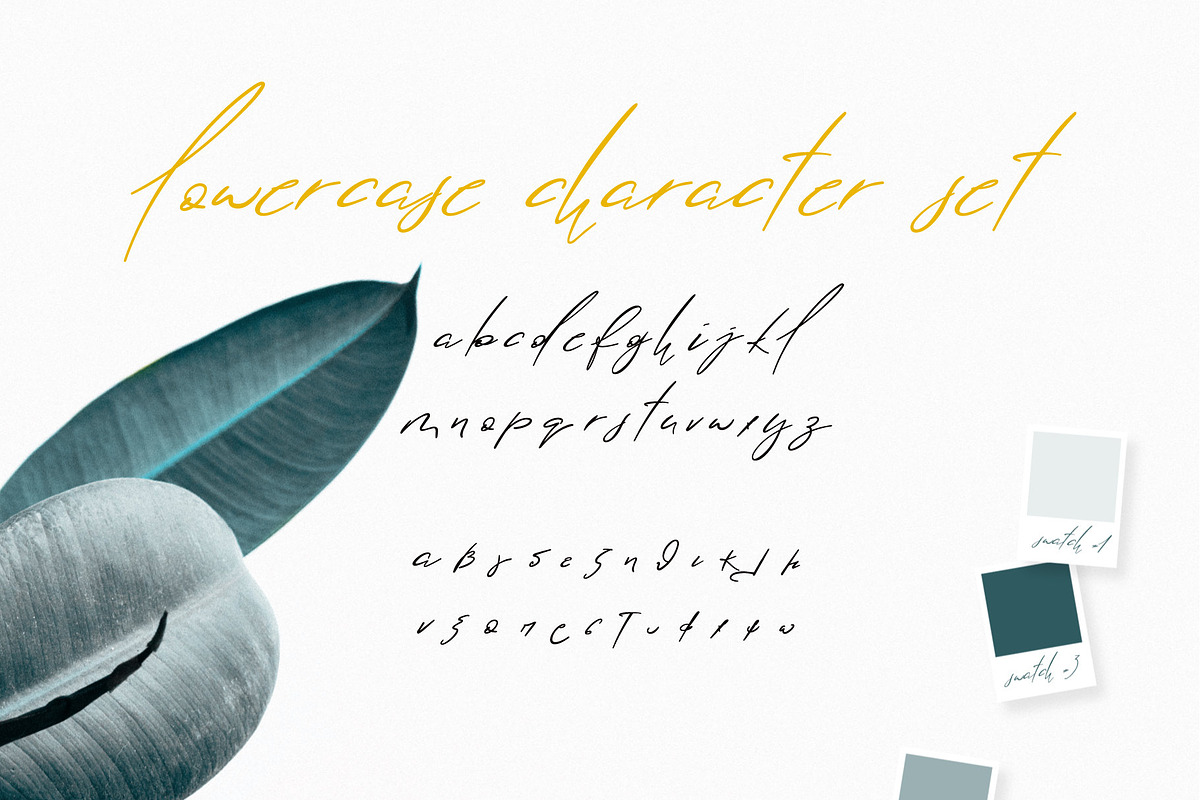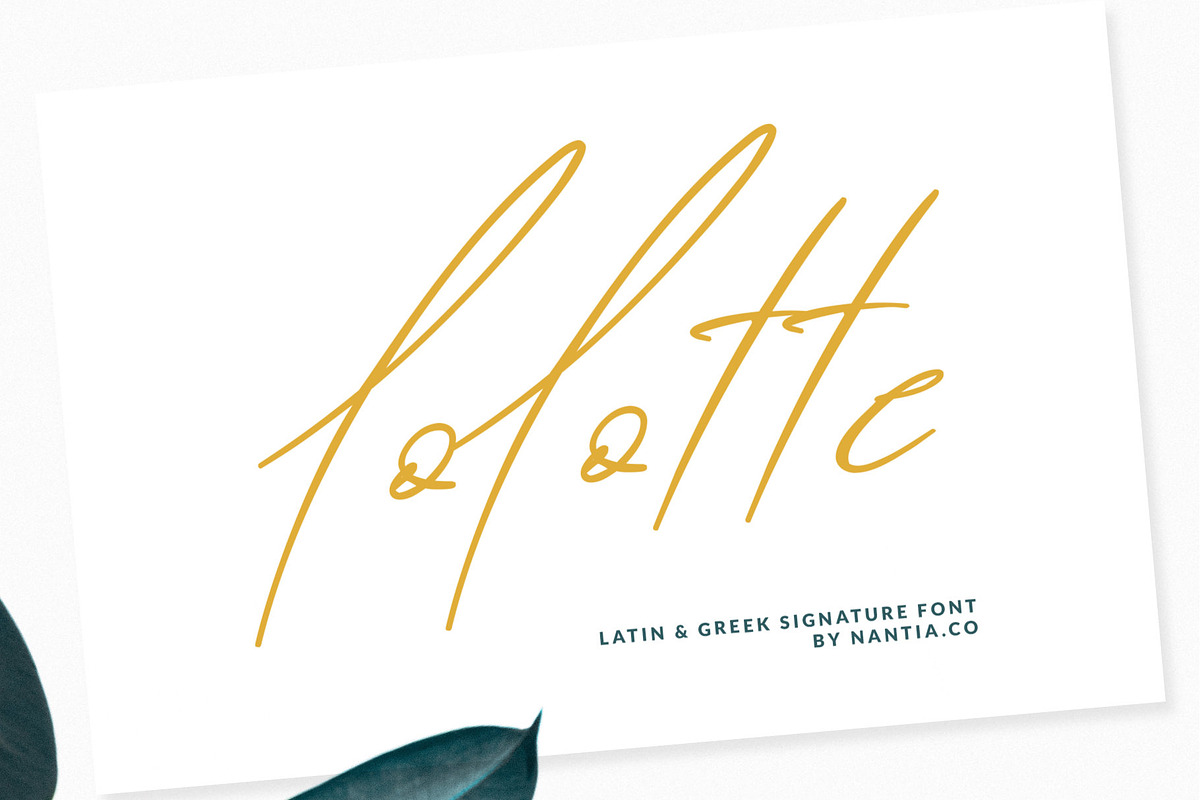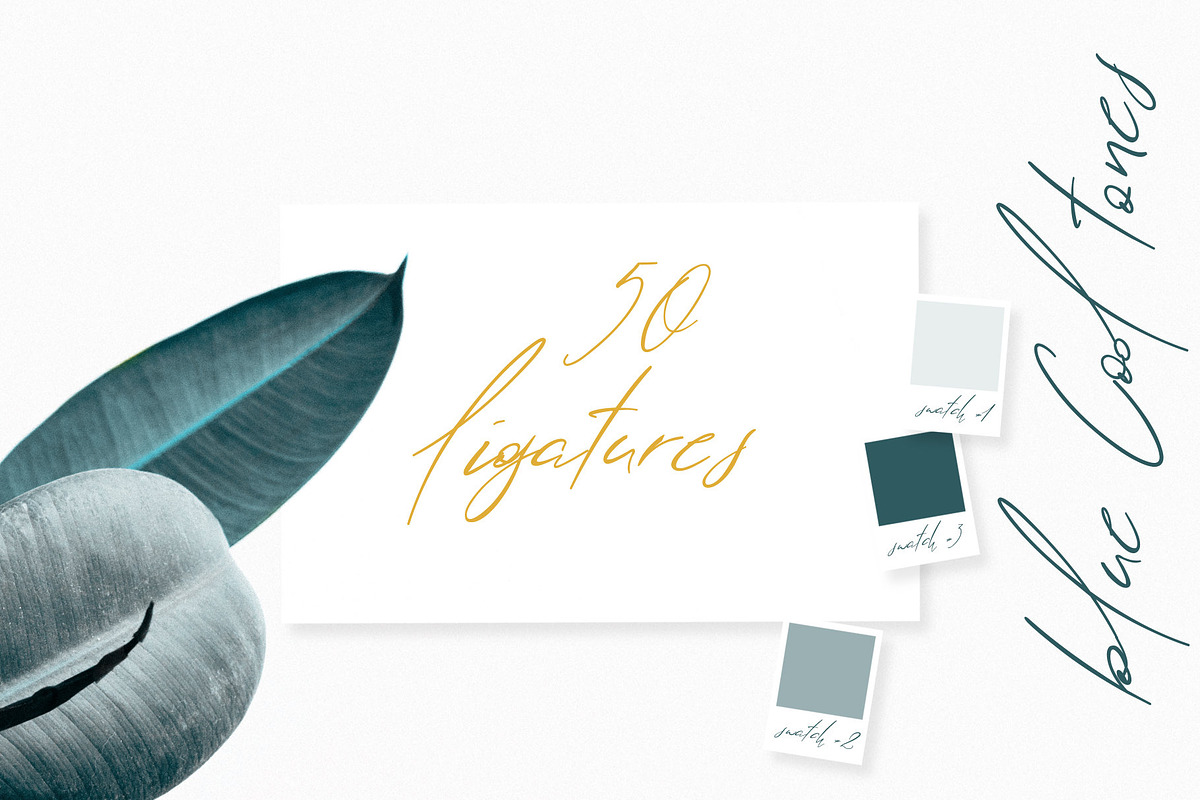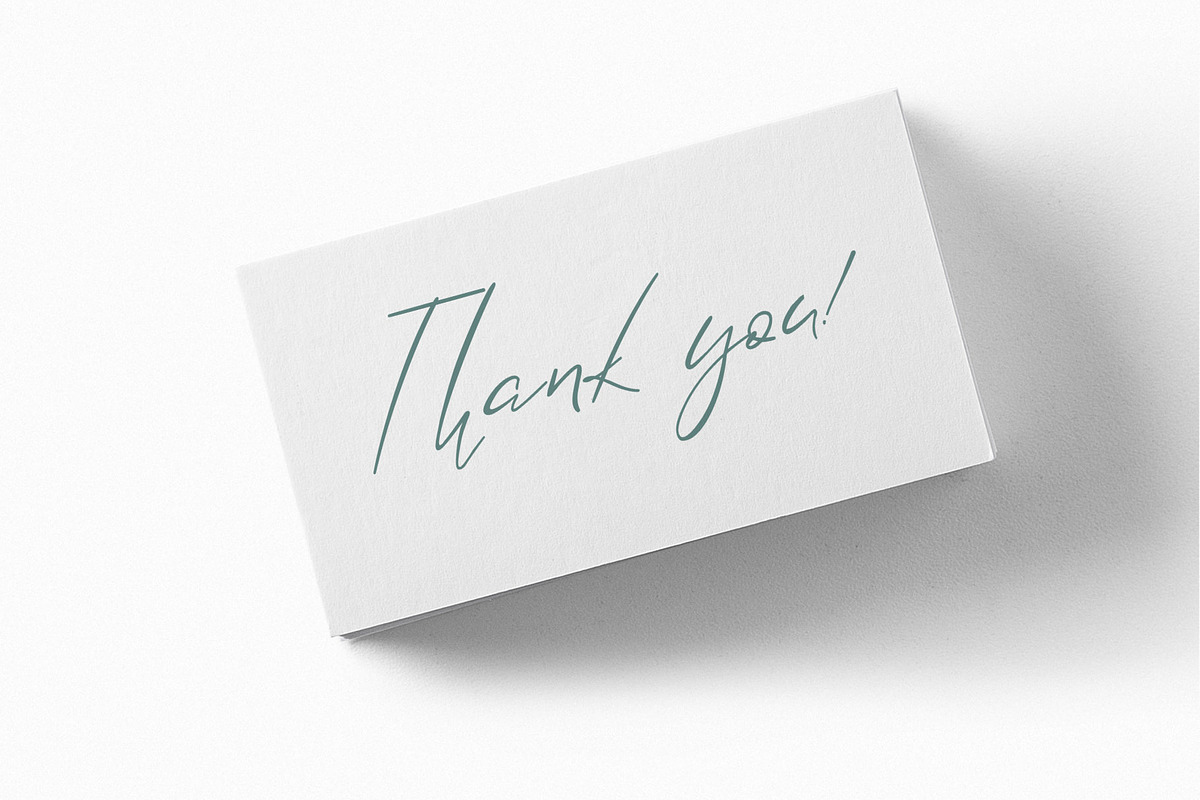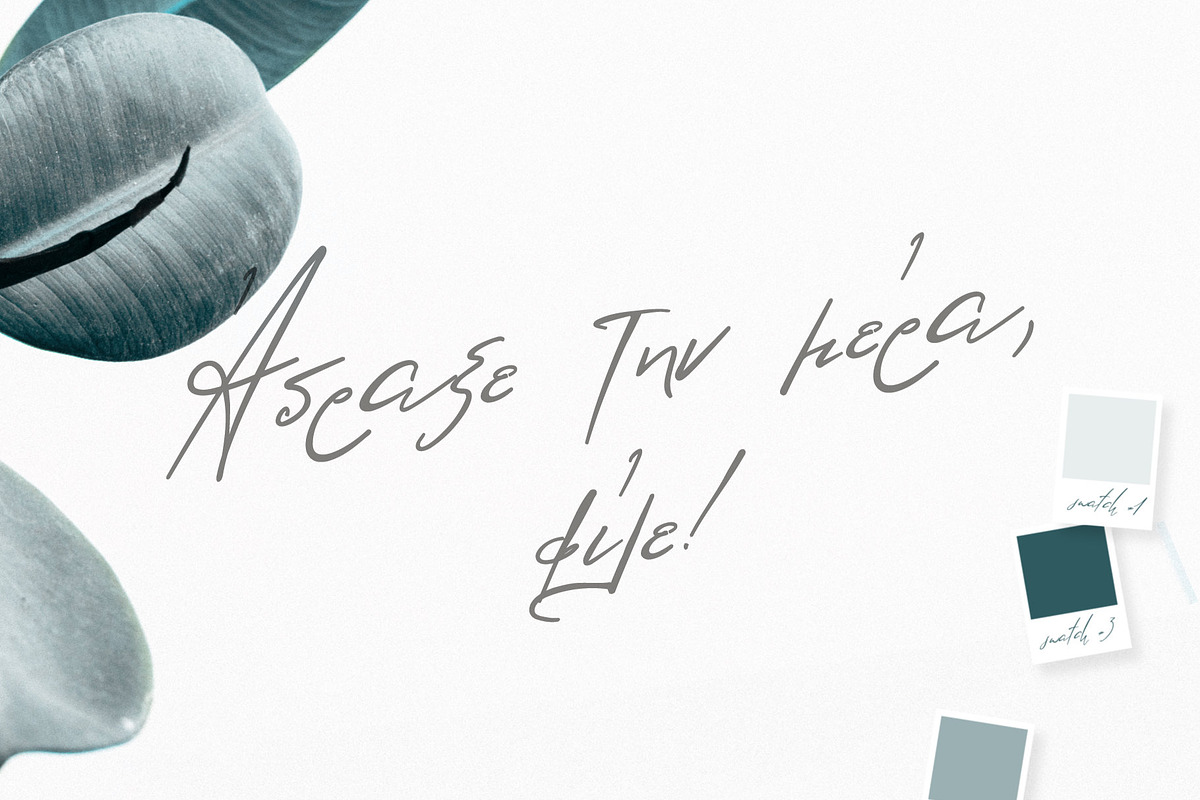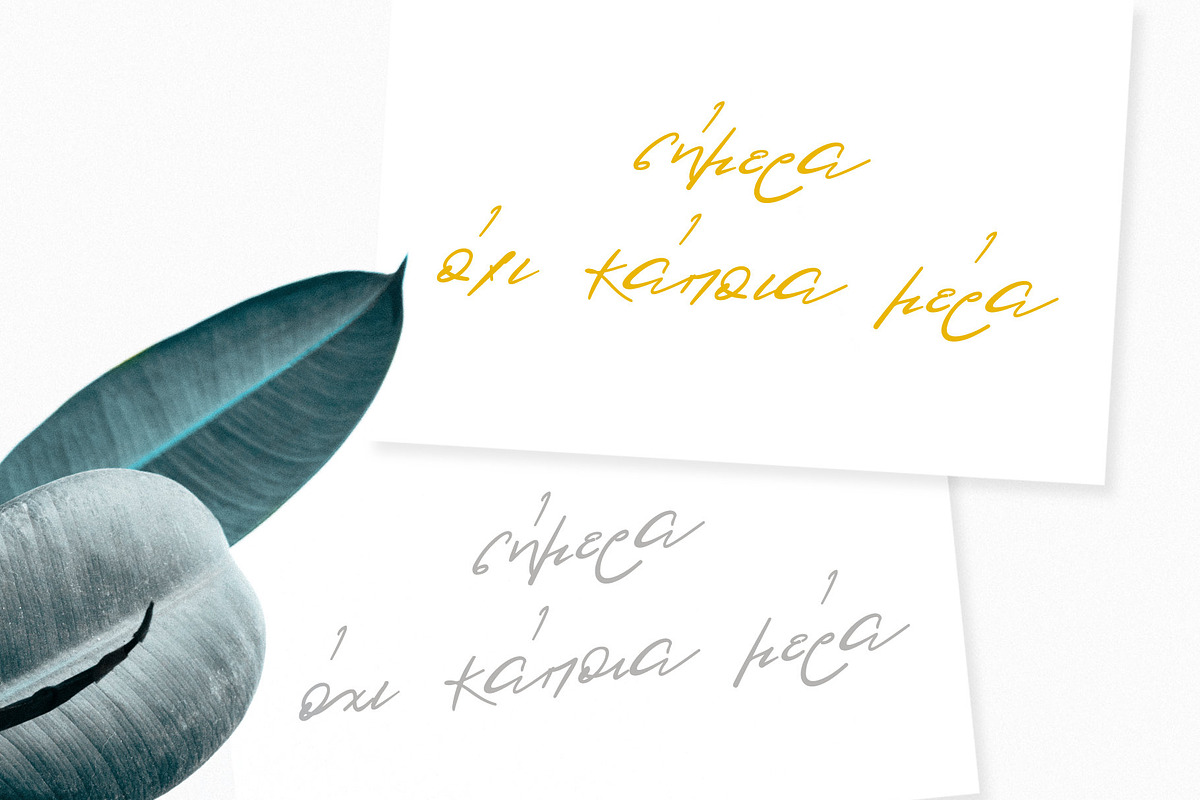
Greek font Lolotte Script
The Lolotte Multilingual Signature Font. Greek font. A signature decorative font with which you can achieve a handwritten-type lettering feeling. Lolotte Multilingual Signature Font is a multilingual lettering font with Greek (of course), extended Latin characters and diacritics. This signature style is perfect for your modern graphic design projects. This font has a really nice flow so you can use it in a large body of text if you want to give it a handwritten vibe. It can also be used on social media content, for branding or packaging applications.
Also, Lolotte Multilingual Signature Font is the ideal typeface for branding and packaging. Additionally, you can use Lolotte Multilingual Signature Font on wedding invitation designs. Especially if you are looking for a font for Instagram quote posts or any other social media content, this typeface is for you!
Greek font Lolotte Script by Greek fonts by nantia.co fits naturally into Branding, posters, packaging, typography.